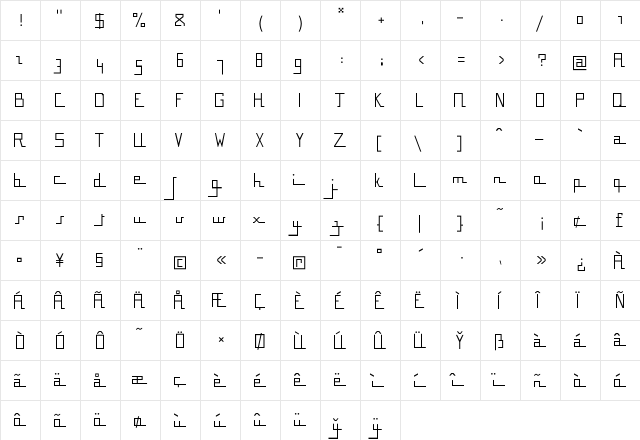
BousniCarre LT Std Light Regular
| Foundry | Linotype Library GmbH |
| Designer | Bachir Soussi Chiadmi |
Design Context for BousniCarre LT Std Light Typeface
BousniCarre LT Std Light offers clean, dependable letterforms without strong stylistic allegiance, making it a practical choice for designers who need flexibility. The delicate stroke weight brings airiness and refinement to layouts.